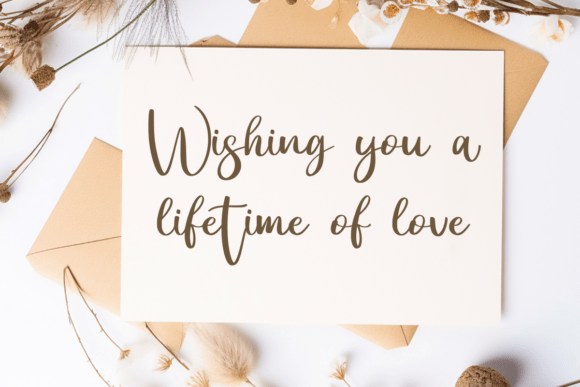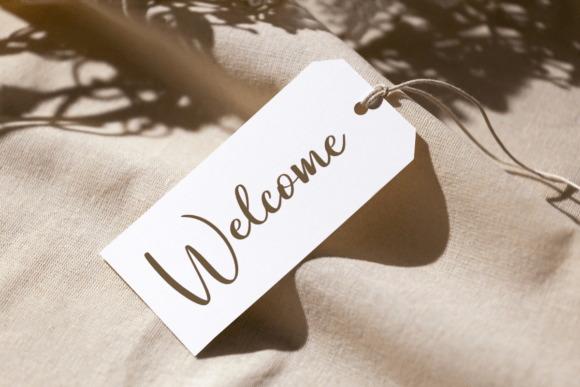
Amelinda Font
Amelinda is a modern handwritten font that blends elegance with simplicity, perfect for designs that need a graceful and contemporary touch. Its smooth curves and stylish flow make it ideal for wedding stationery, fashion branding, social media graphics, and logos. With a soft and feminine aesthetic, Amelinda brings a sense of beauty and charm to any project.